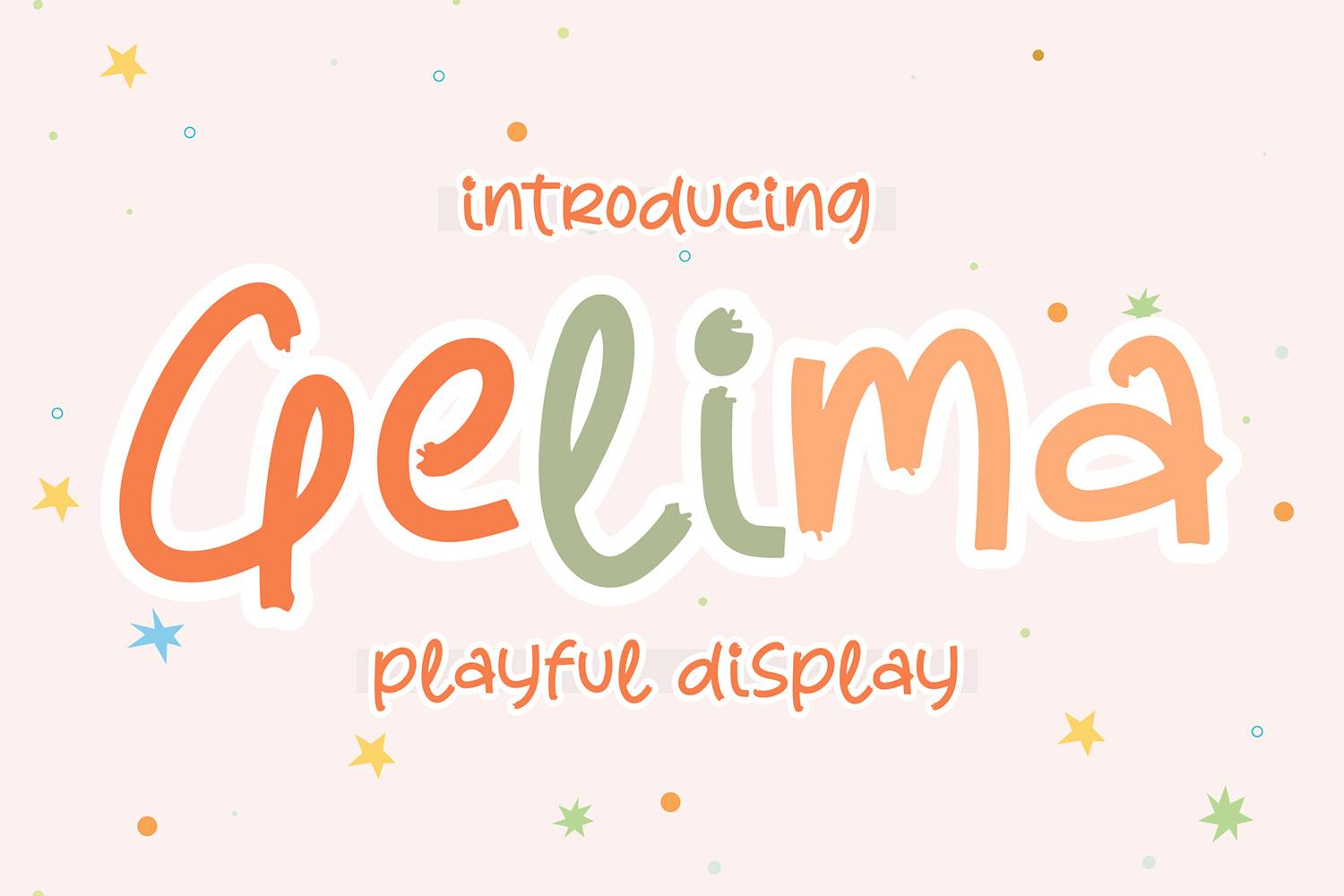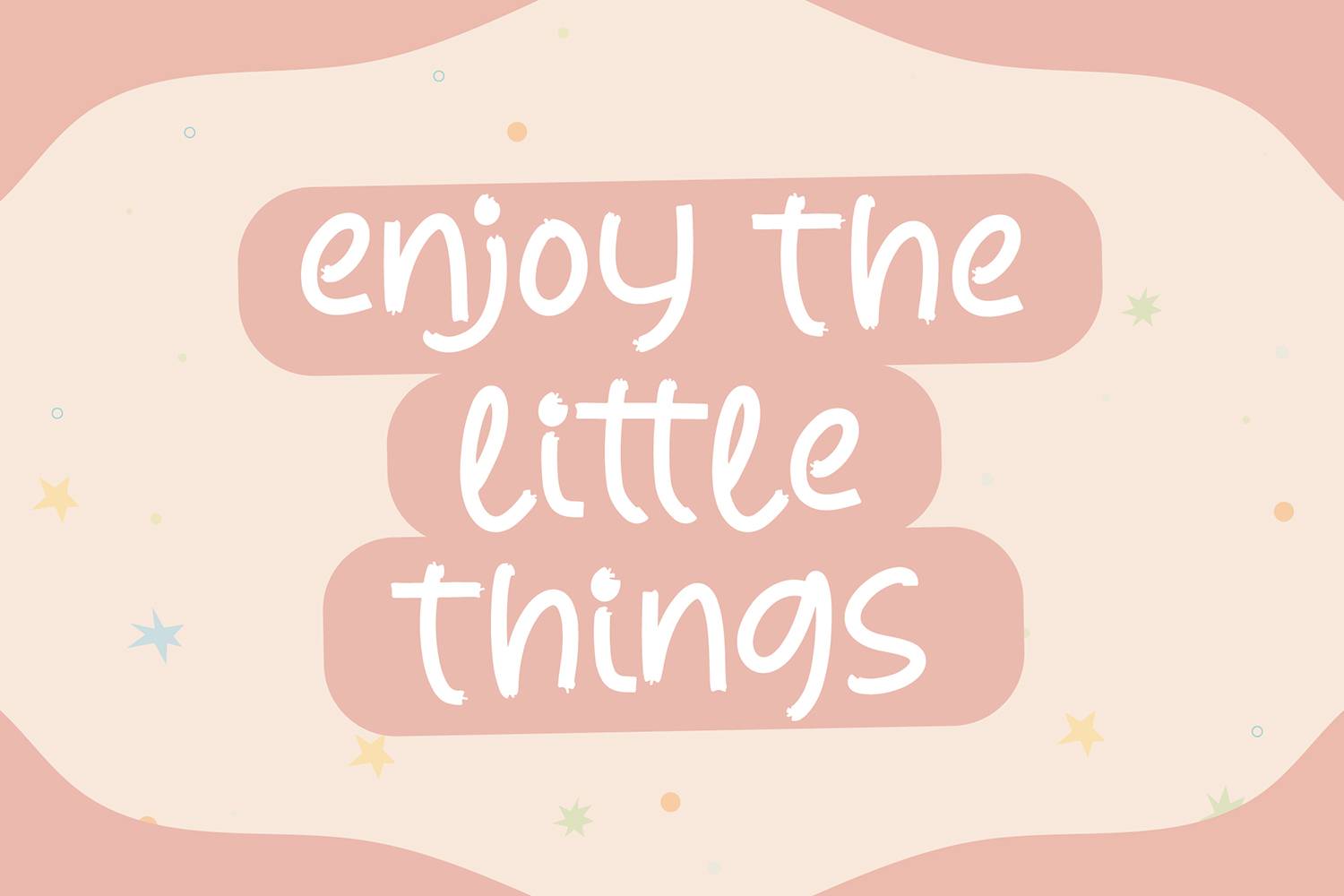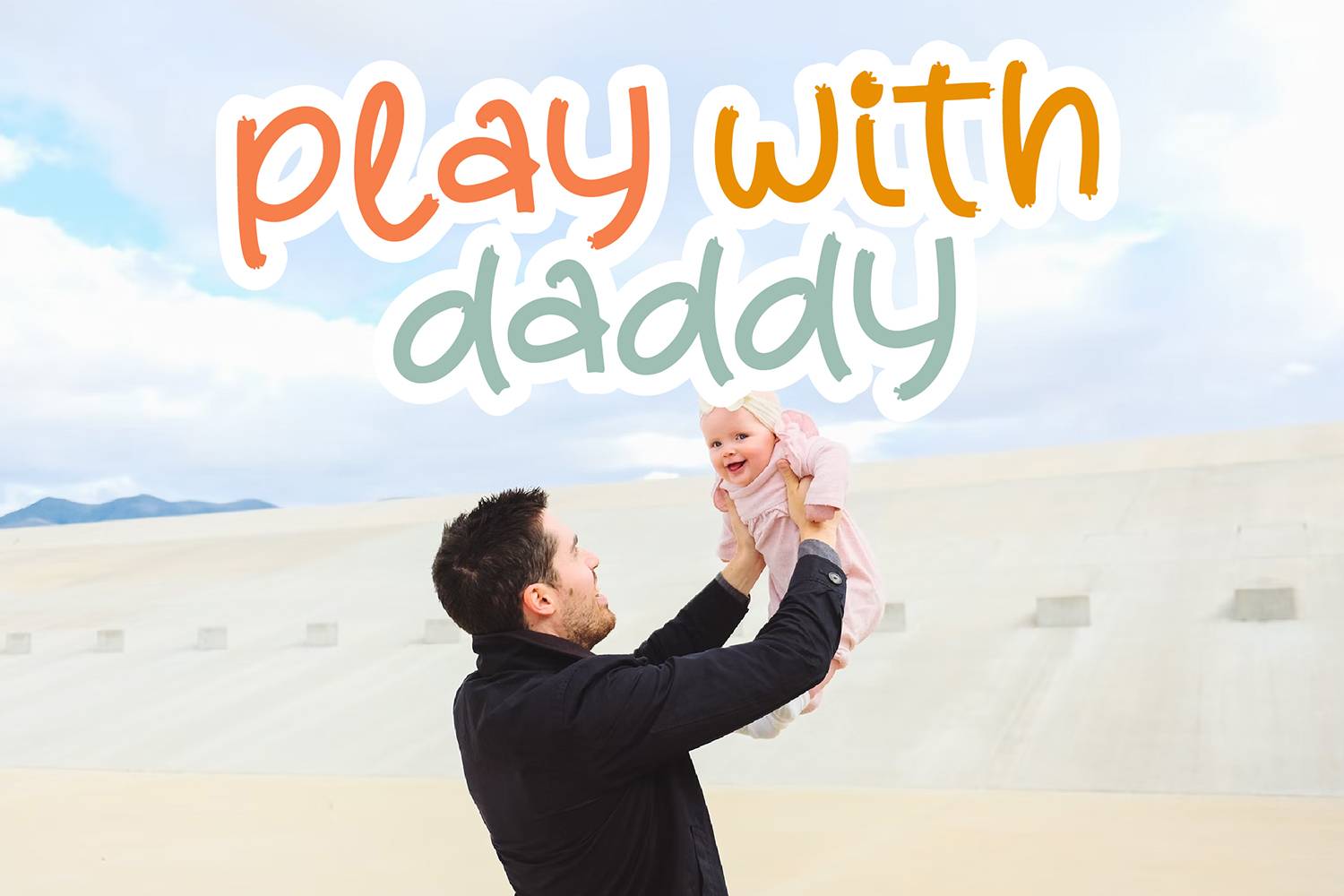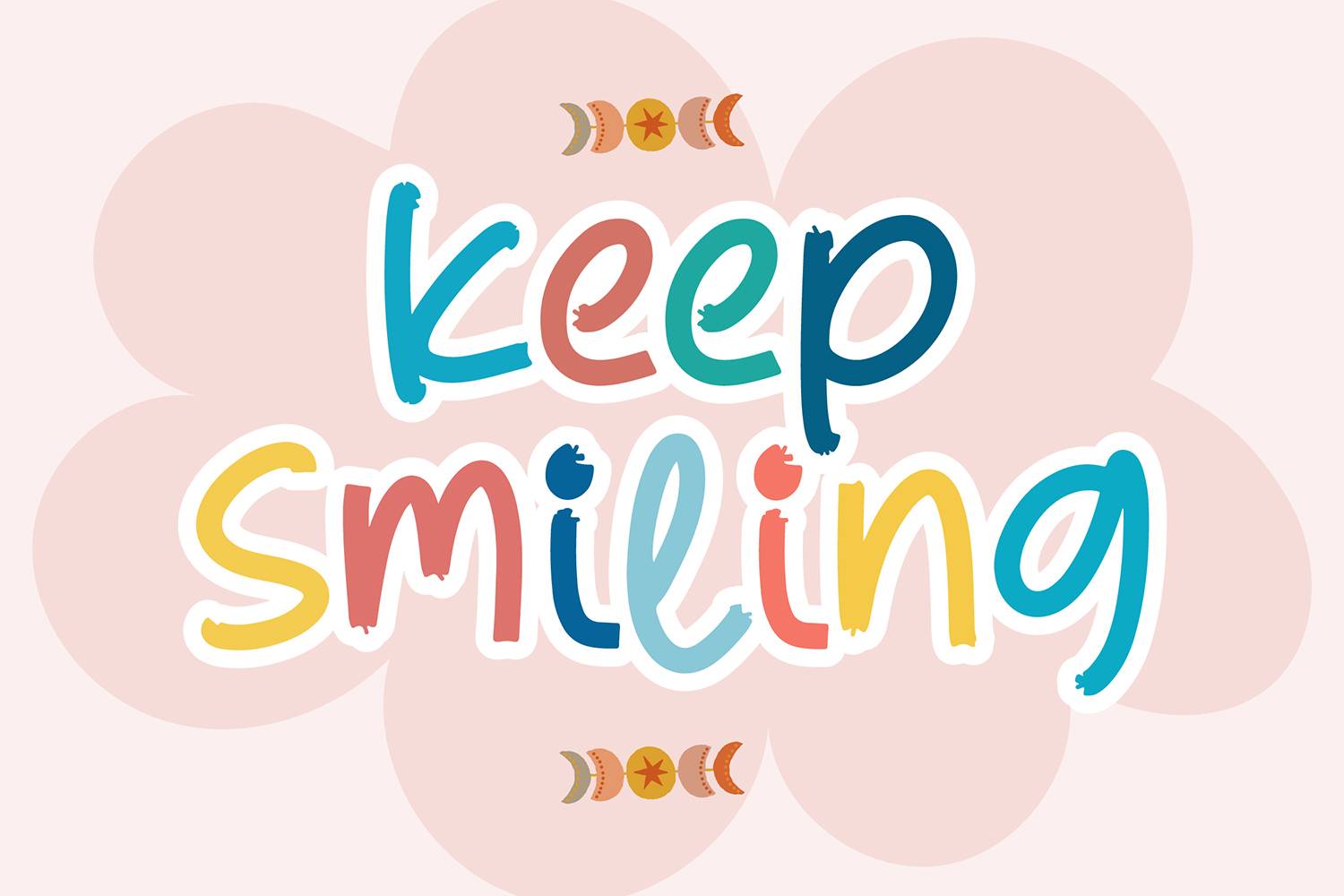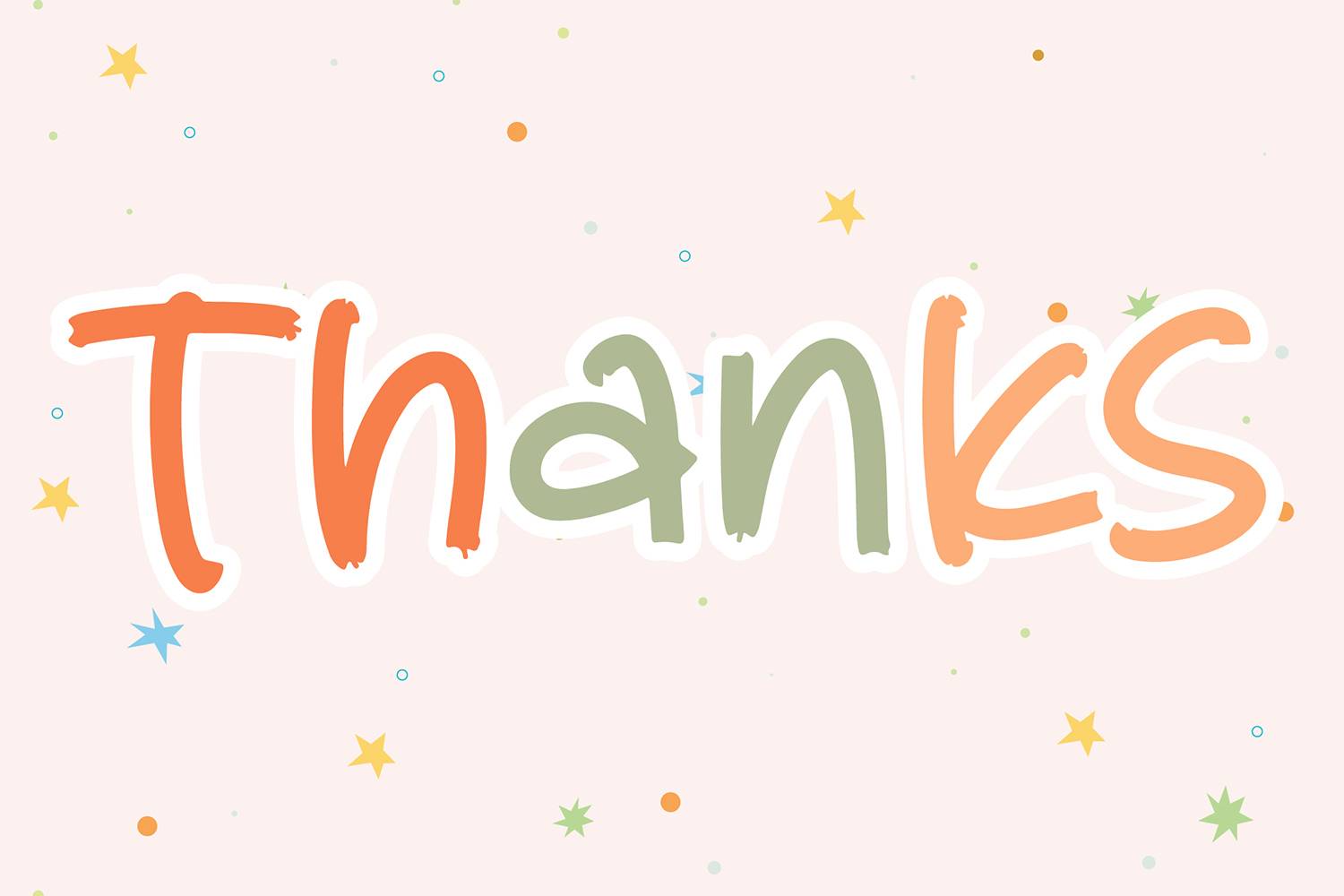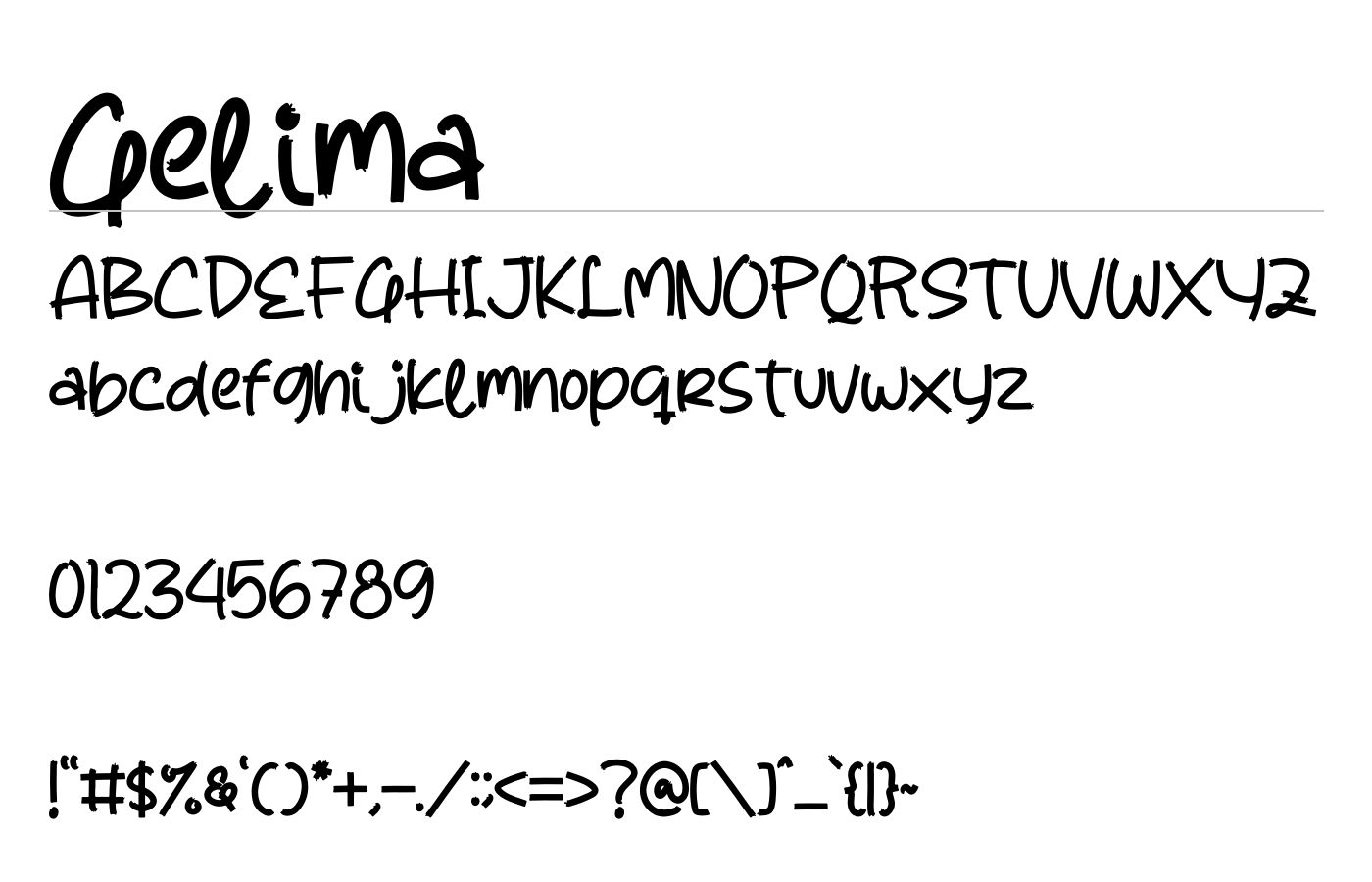
Gelima is a playful, handwritten sans serif font with a casual and friendly vibe, characterized by its irregular, slightly rough strokes and high, varied x-height. Its informal style and lively letterforms make it ideal for creative, youthful brands, children’s products, or fun editorial designs. Gelima works best in logos, headlines, and packaging where a personal, approachable touch is desired.
Gelima Font
About Gelima Font